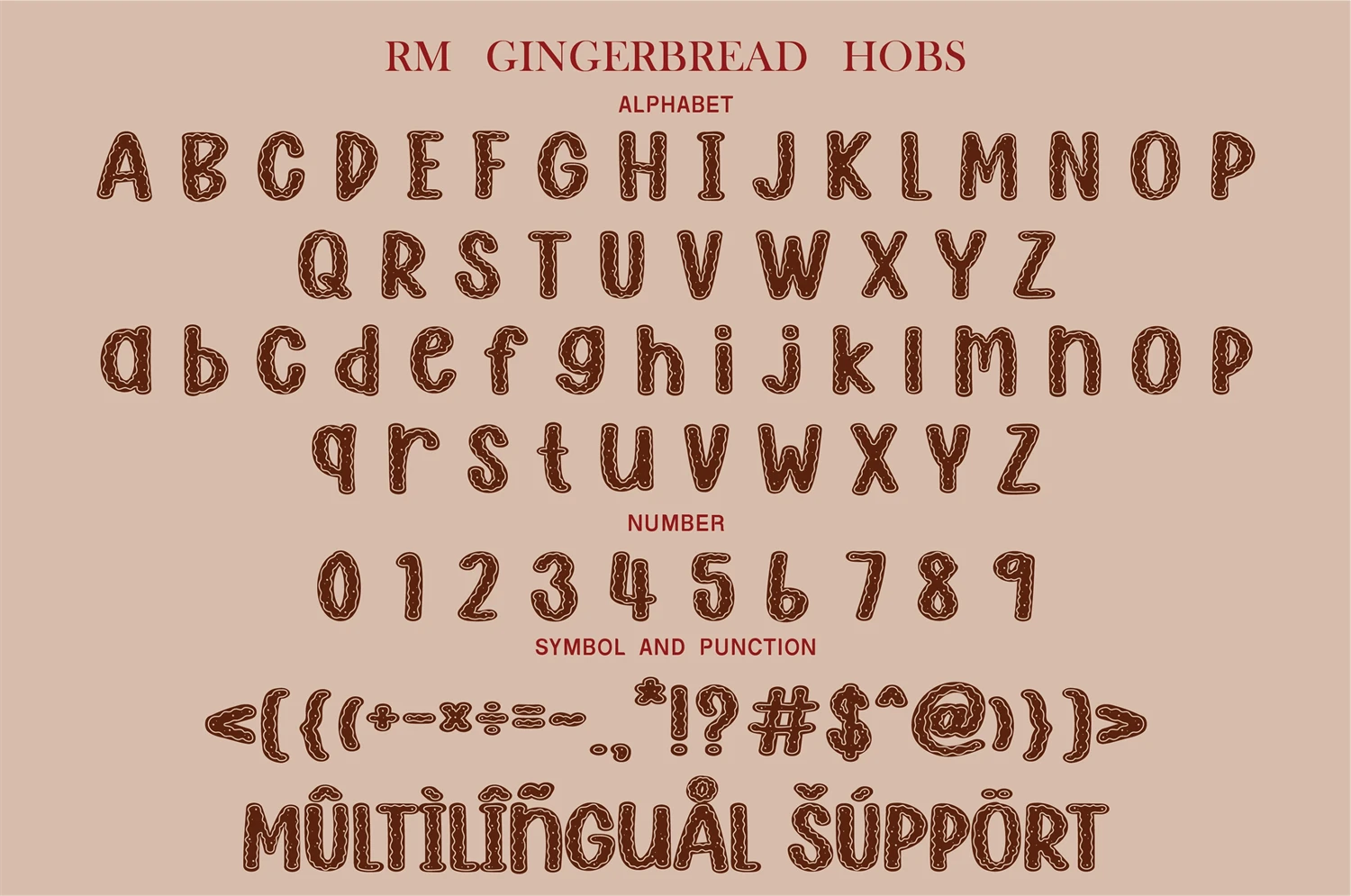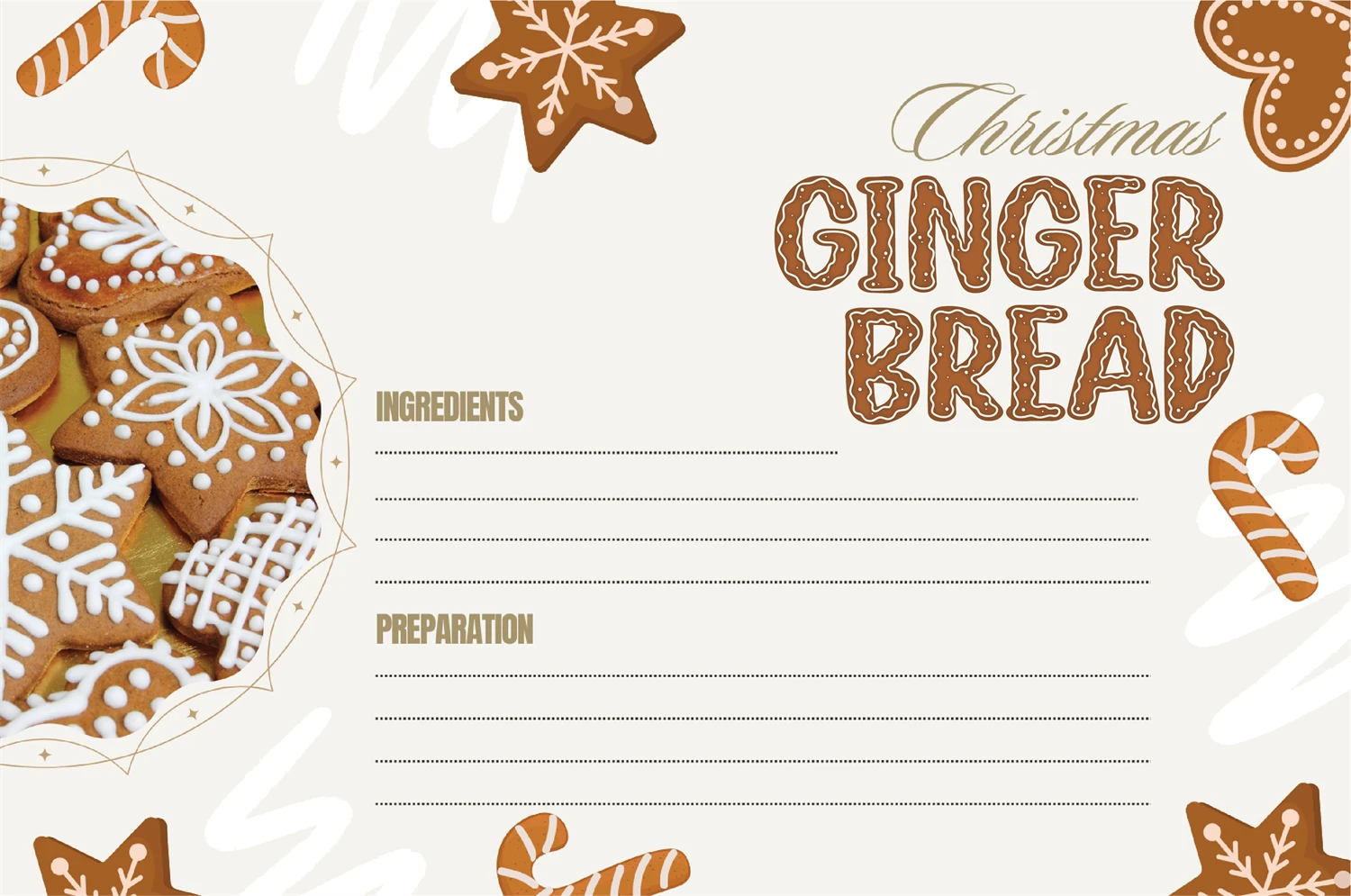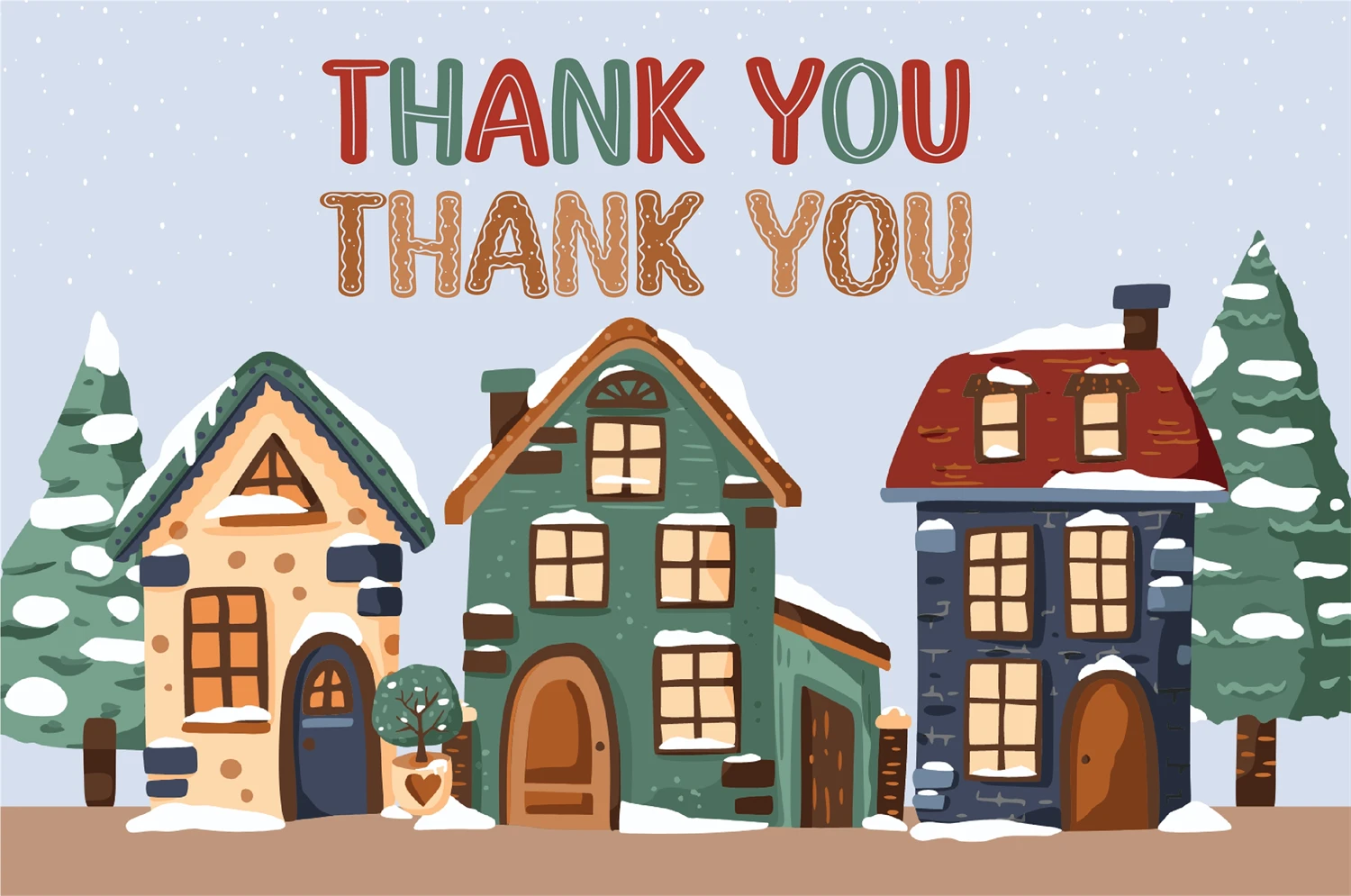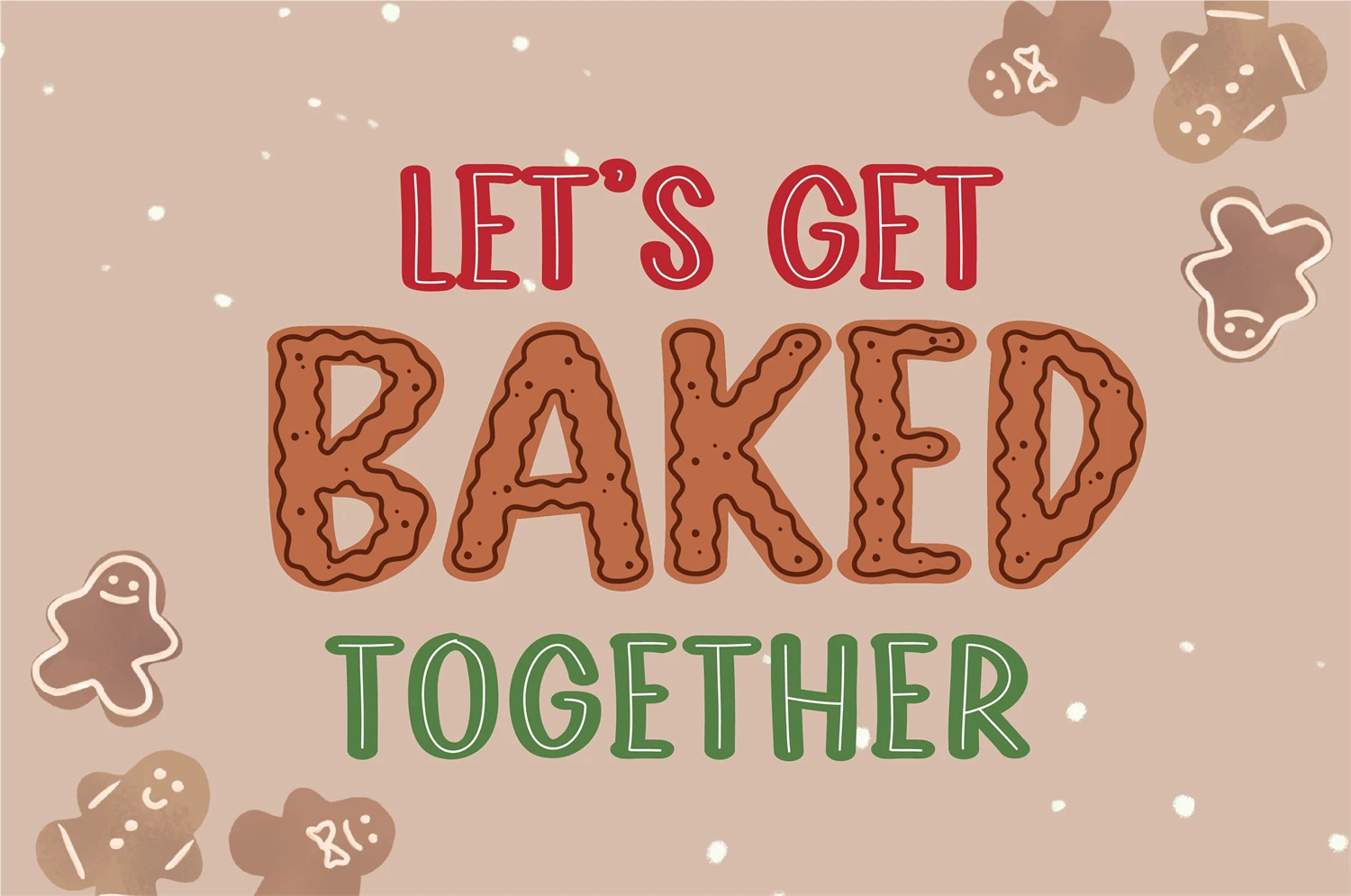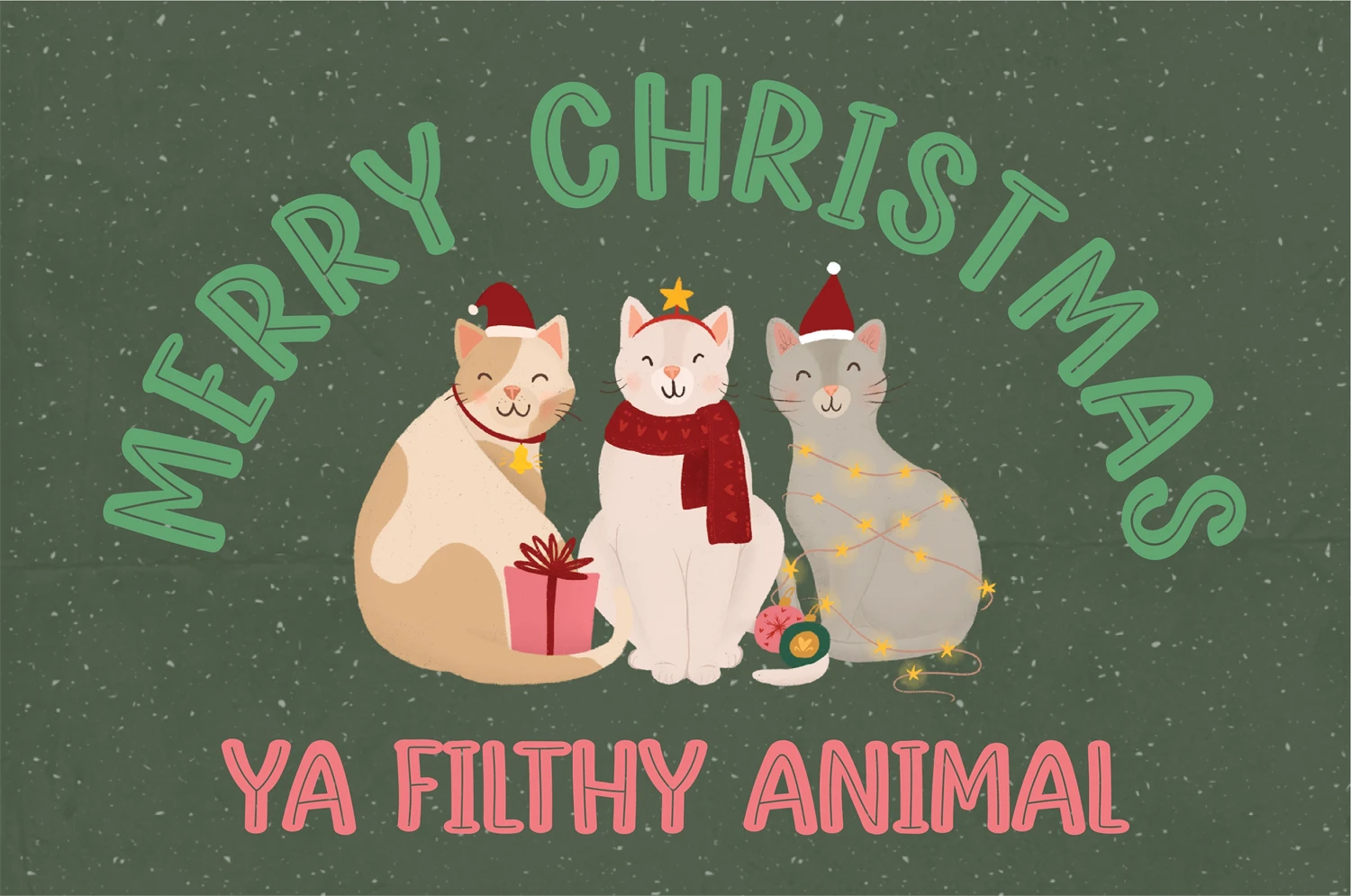
Jolly Hobs Duo is pack of christmas font. Included with Jolly Christmas and Gingerbread Hobs. Perfect for create Christmas project, shirt, mug, etc. OTF and TTF files Cricut support, Silhoutte support. Friendly and fun font in this season!